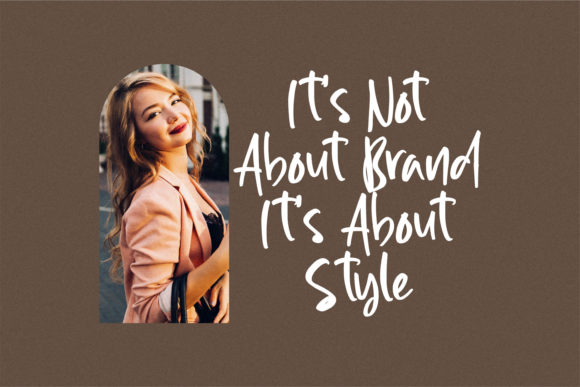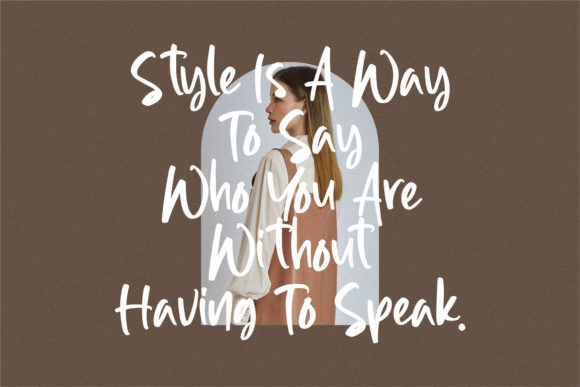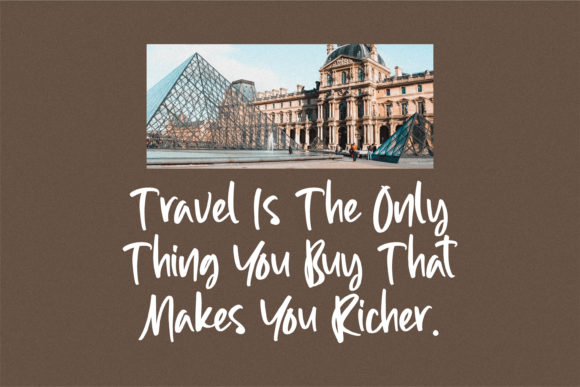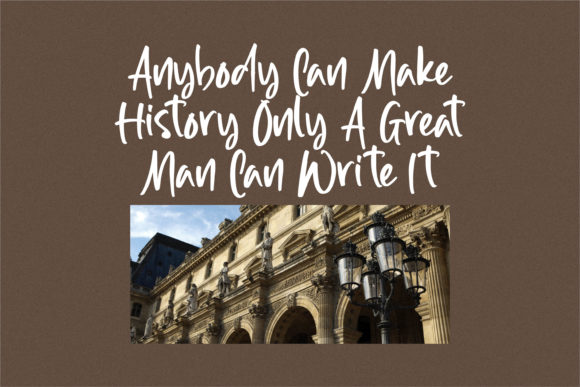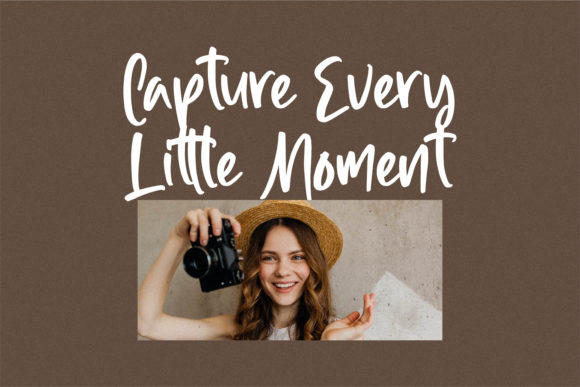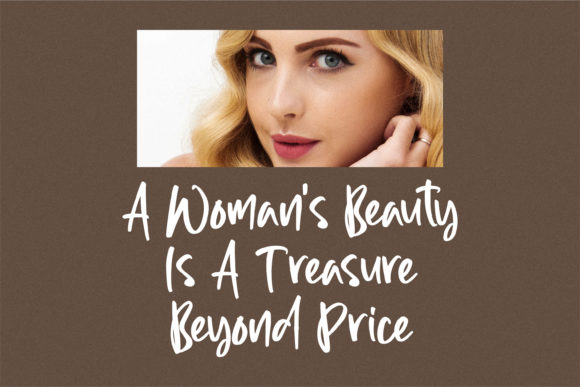
Introduction to Allinda Light Font
Allinda light is a beautifully carved handwritten font.
Its elegant and sophisticated style makes this typeface incredibly fitting to a wide pool of projects and designs such as photography, watermarks, special events, or other luxury projects .
Key Features of Allinda Light Font